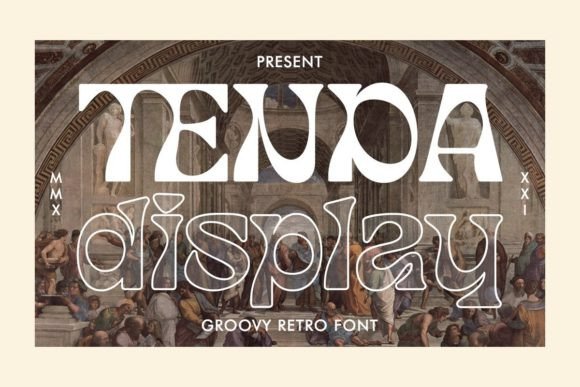
Embark on a typographic odyssey with Tenda Display, the font that ignites imagination and captivates hearts. Its bold strokes dance across the page, evoking a whirlwind of emotions that leave an indelible mark on the reader.
Crafted by the visionaries at Attract Studio, Tenda Display is a display font that transcends ordinary boundaries. Its whimsical design dances delicately between elegance and playfulness, beckoning you to explore uncharted creative territories.
Immerse yourself in a symphony of OpenType features that elevate Tenda Display beyond mere text. With a treasure trove of alternate letters and ligatures at your fingertips, you'll craft designs that radiate uniqueness and charm.
Unleash the power of PUA encoding and unlock a universe of glyphs and ligatures that ignite your creative spark. Effortlessly integrate these elements into your designs and elevate them to breathtaking heights.
Tenda Display beckons you to shatter the mundane and embark on a journey where your imagination knows no bounds. It's the perfect font for posters that demand attention, branding that sparks recognition, and headlines that ignite curiosity.
Behold the transformative power of Tenda Display. Watch as your words leap off the page, captivating audiences, and leaving a lasting impression. Dare to embrace the extraordinary and let Tenda Display be your guide to typographic greatness.